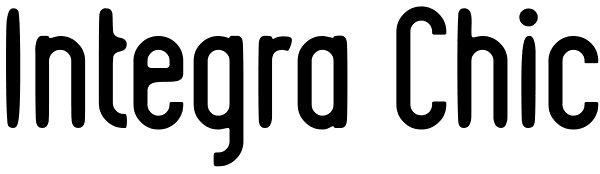
Integra Chic
Kustomtype’s “Integra Chic” font is a sans serif font family with a regular & oblique version. It contains all upper & lower cases. The “Integra Chic” family is coordinated into letterforms, metrics, and weights to work better together. Why still...
Integra Chic Italic
Integra Chic